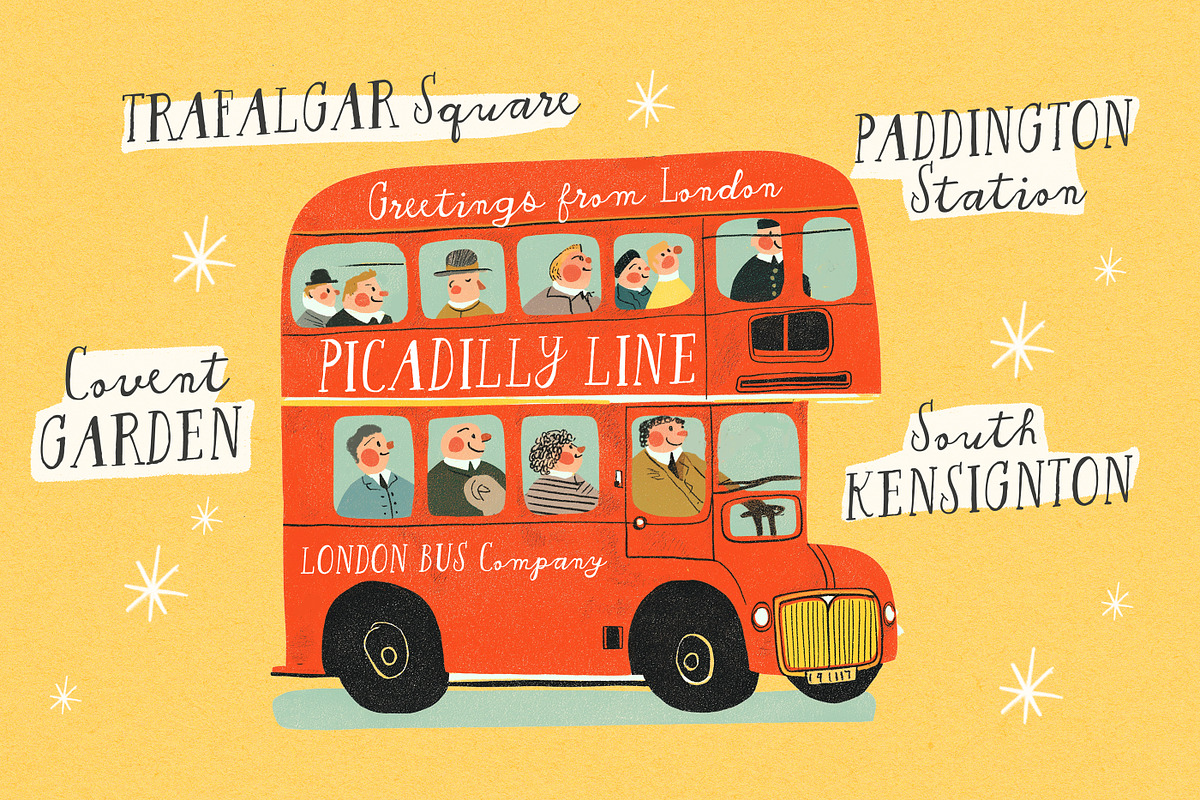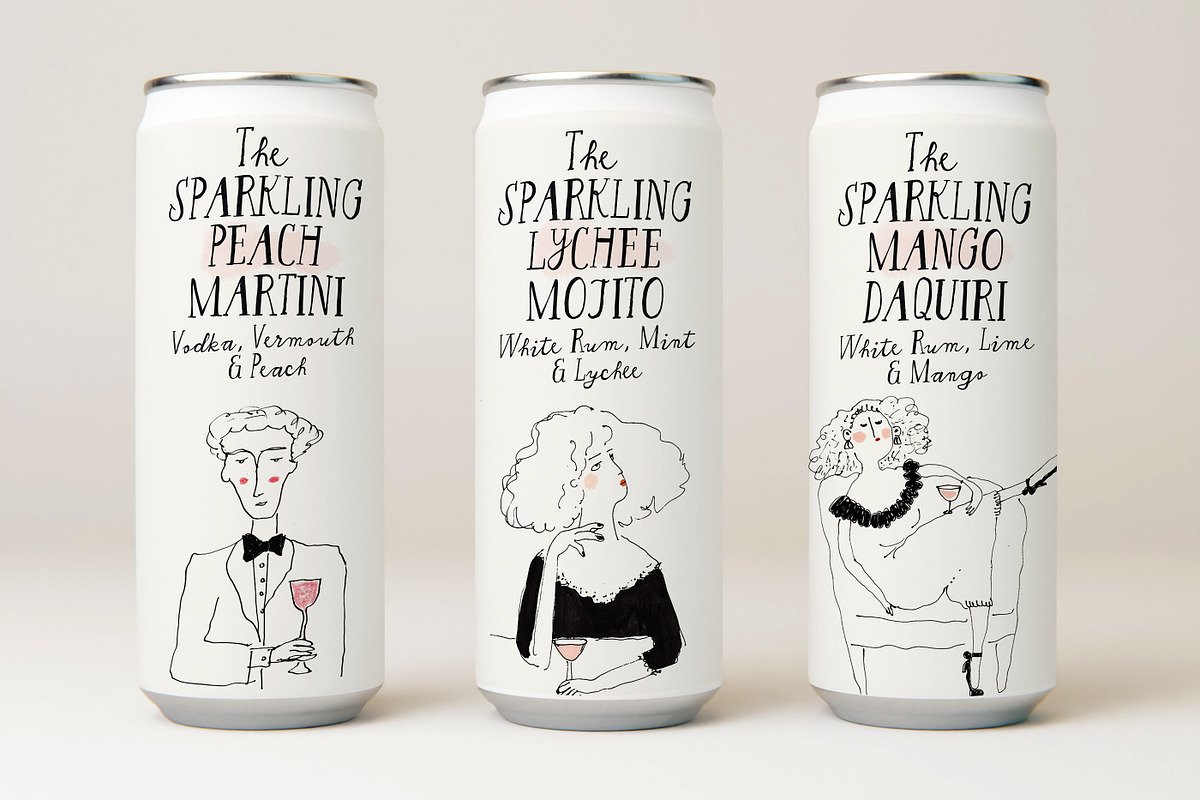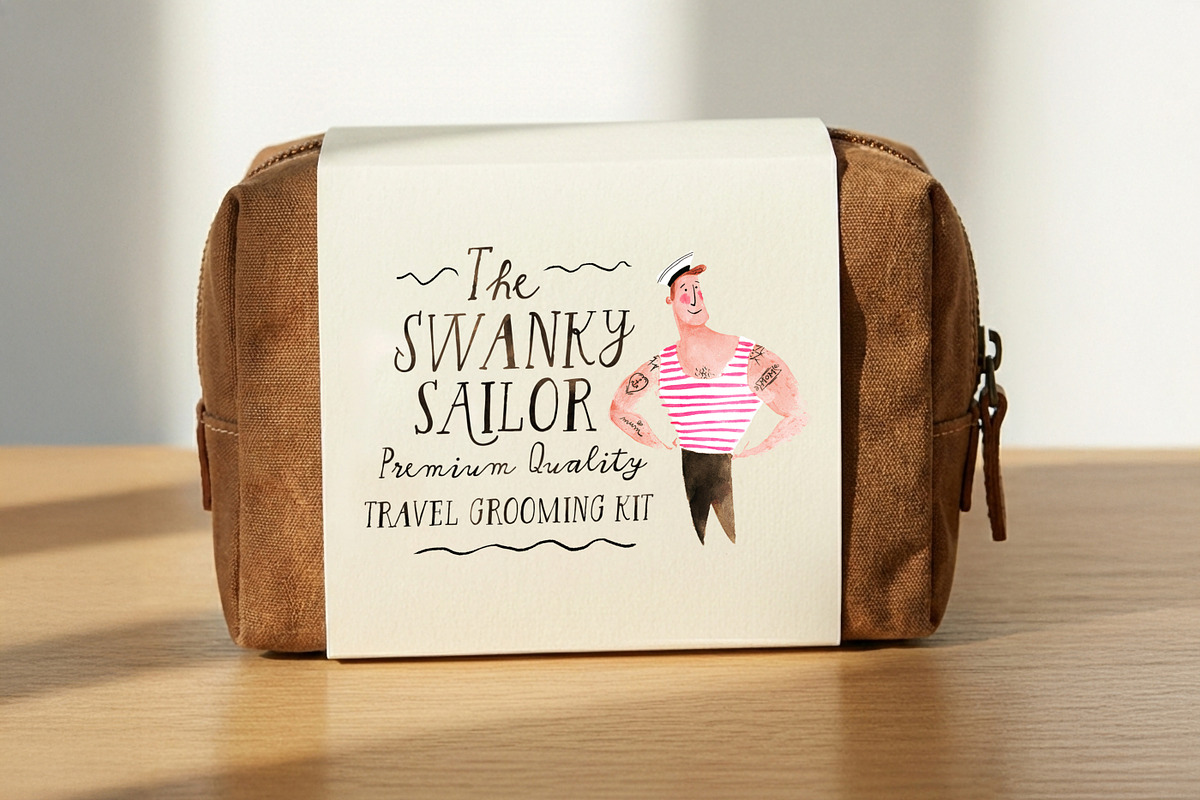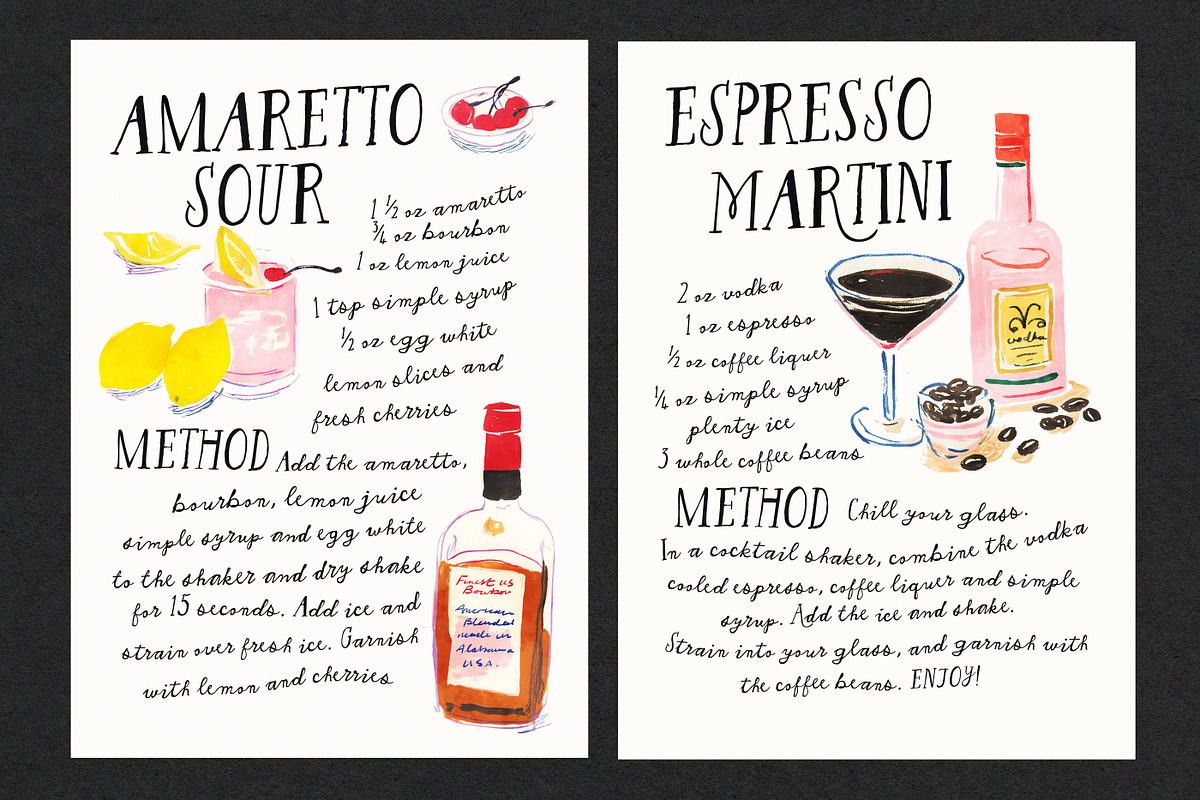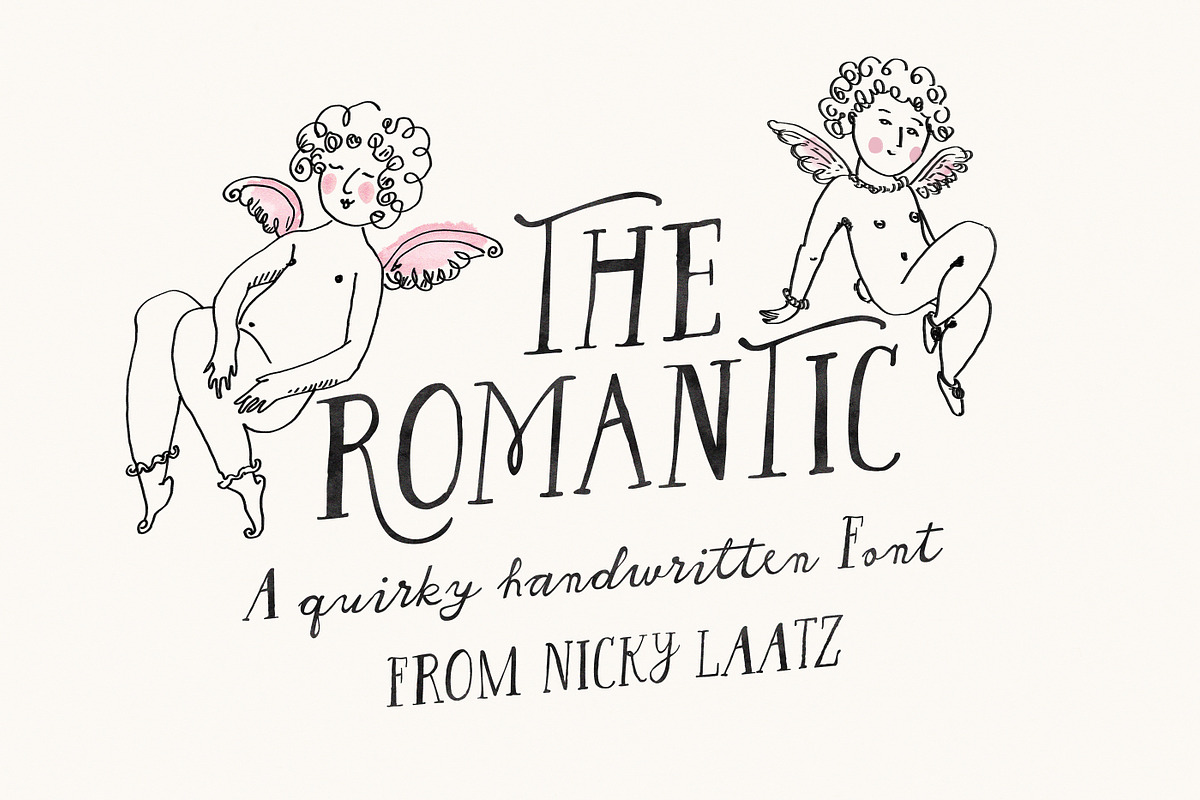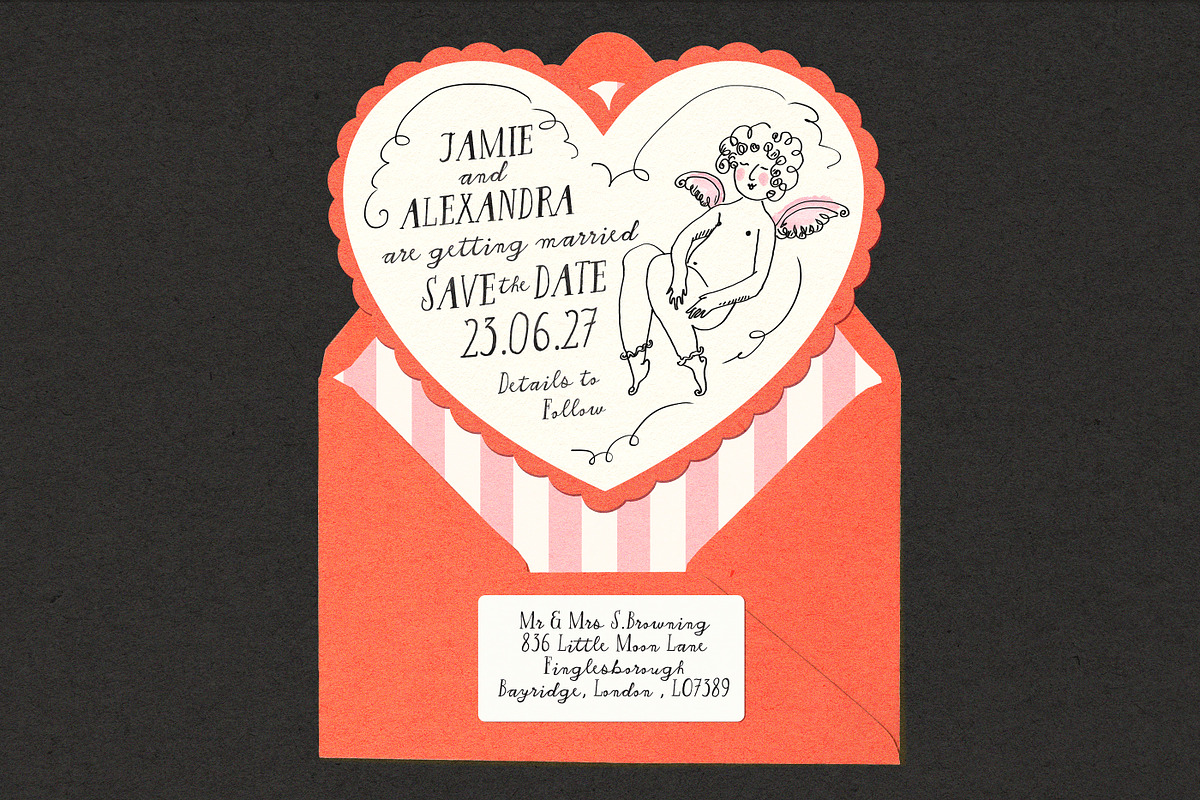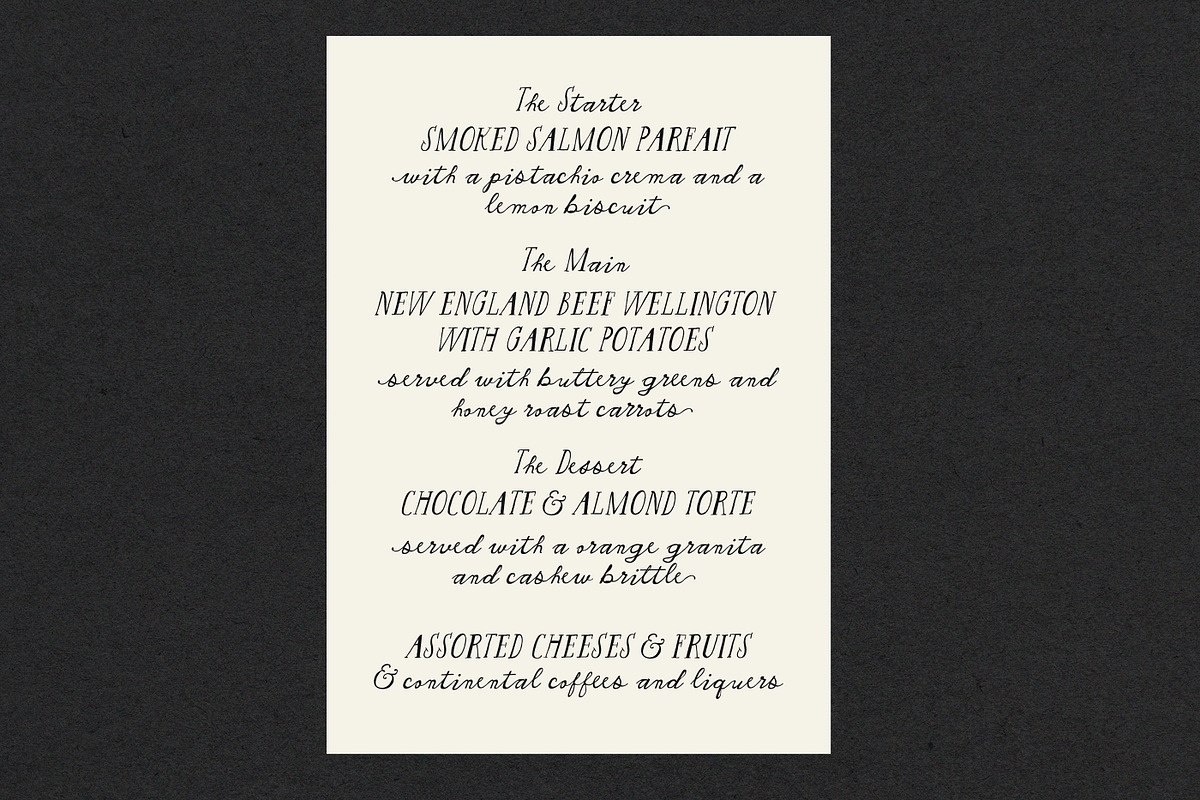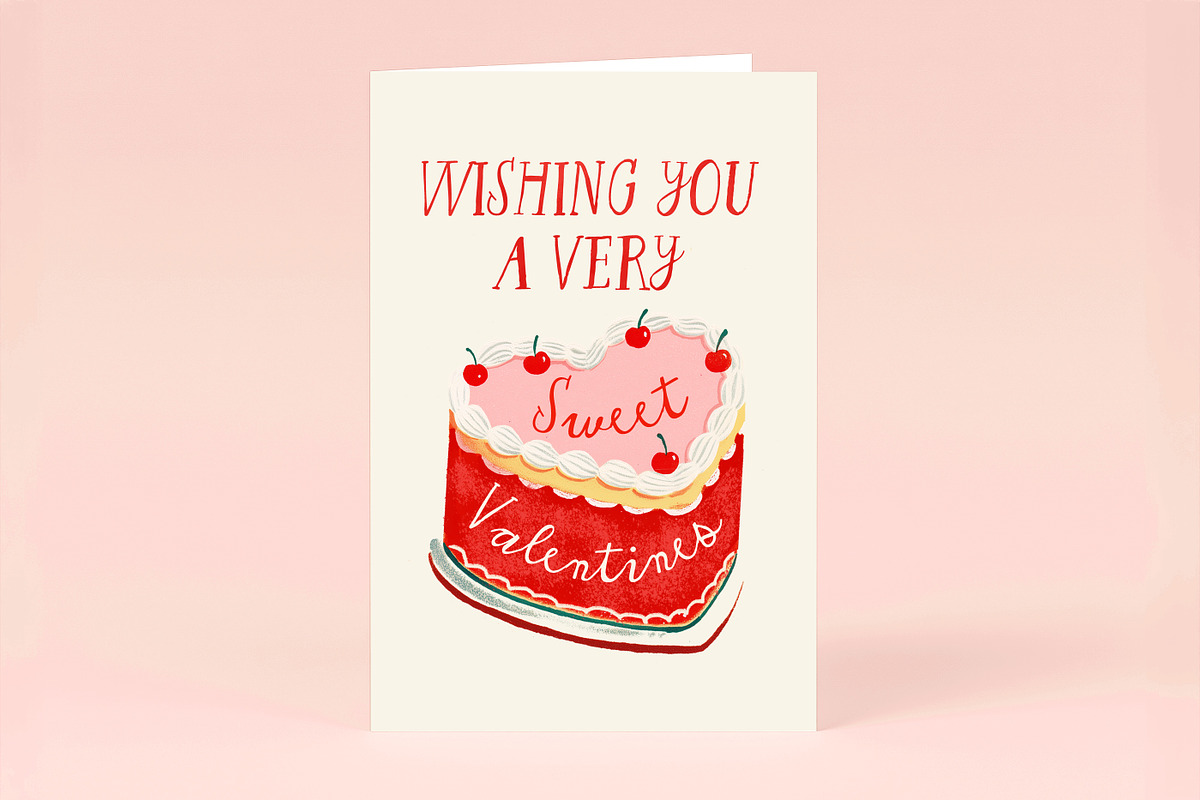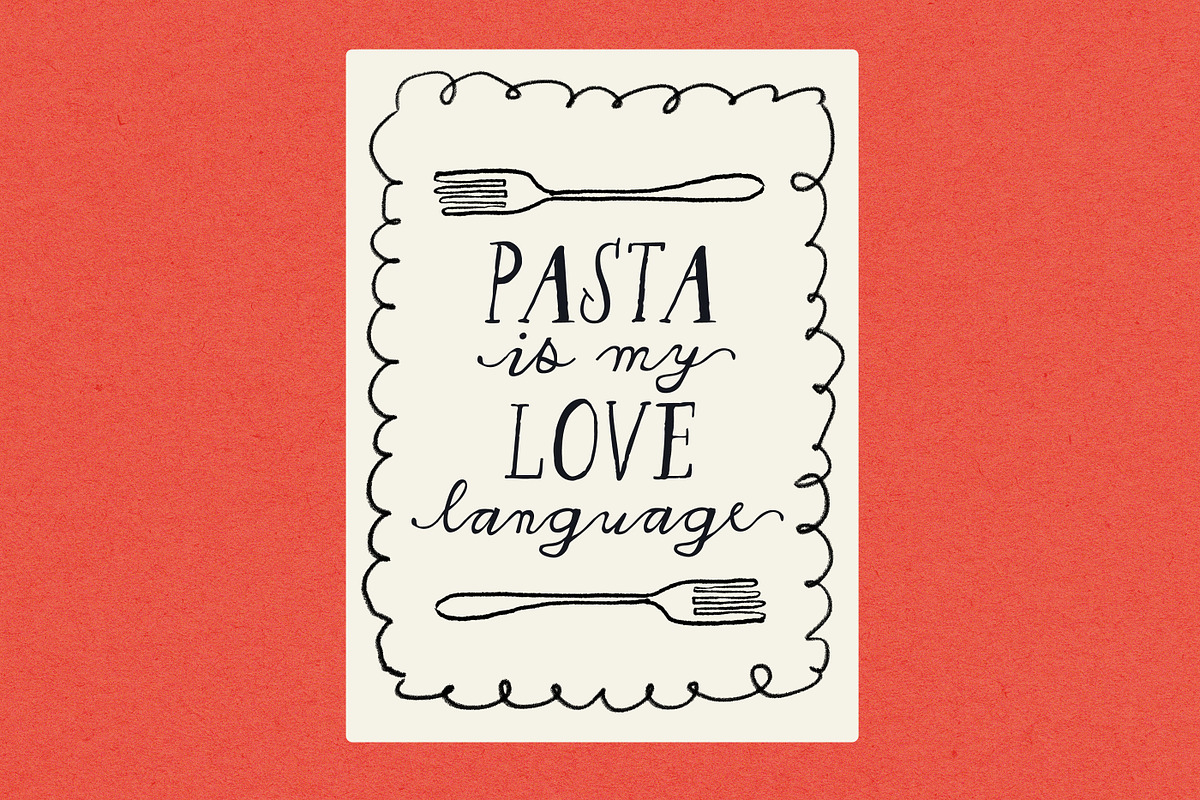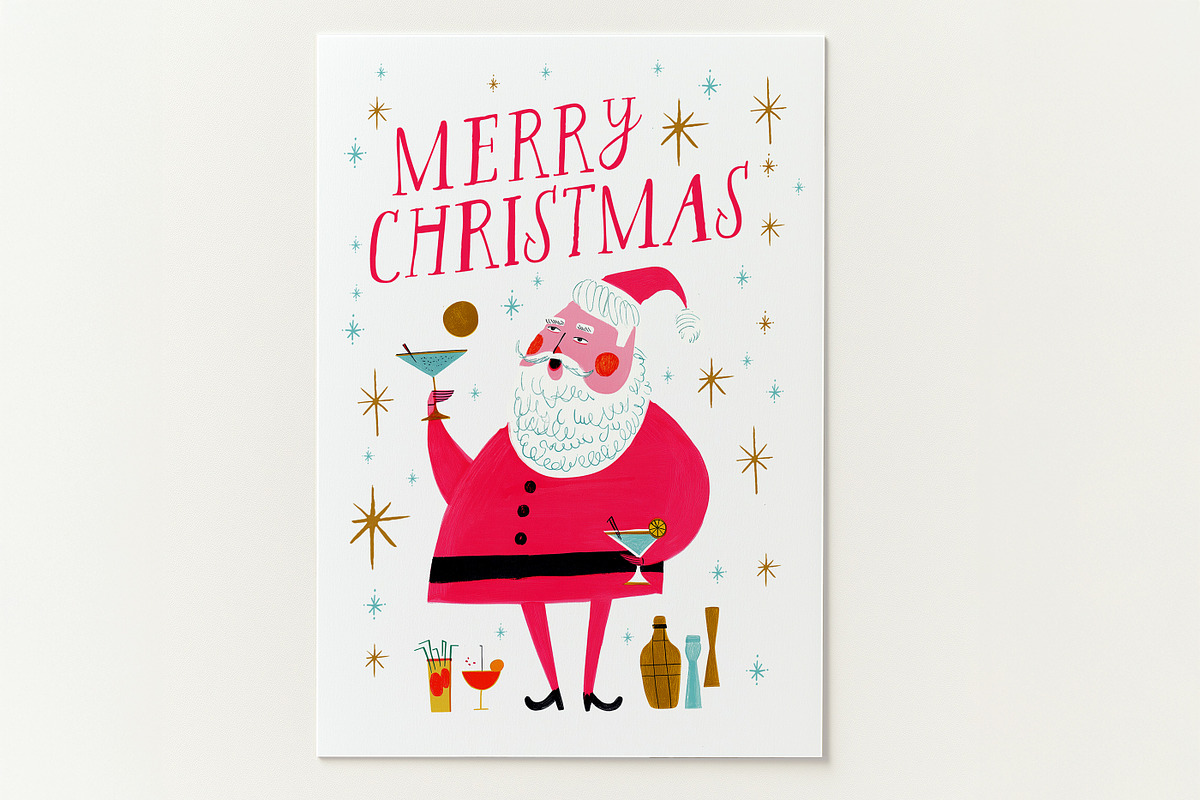
The Romantic Font
Say hello to The Romantic Font! A Hand-drawn script and serif hybrid inspired by antique quilled handlettering that oozes charm, softness and imperfect whimsy!
Each character is thoughtfully drawn to feel alive on the page. Flowing lowercase letters bring warmth and movement, while tall, expressive uppercase forms add personality and flair. Alternates, ligatures, and playful swashes invite experimentation, allowing text to feel bespoke rather than set. No two words need to look the same.
Perfect for Charming greetings, whimsical weddings, playful menus, quirky branding and so much more :)